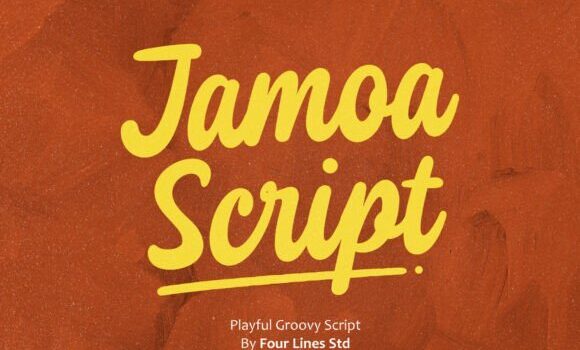
Jamoa Script Font – Free Download Introduction to Jamoa Script Font Jamoa Script is a playful groovy script font inspired by sunny summer vibes, retro cafés, beach parties, and warm handcrafted packaging. 📸 Preview Gallery 6 images 📌 Product Name